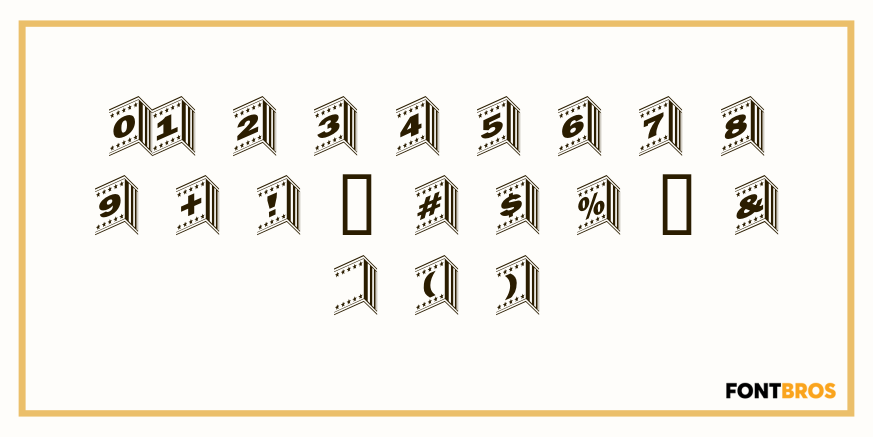
Campaign
We saw a zigzag type like this made in the 1860s. We copied the idea, but added stars to make it patriotic.
As with many highly specialized fonts, you won't want to use this every day but certainly, like other 'stars and stripes' types, it implies something about the message even before one reads the words.
Campaign includes 117 glyphs.
Campaign by Solotype